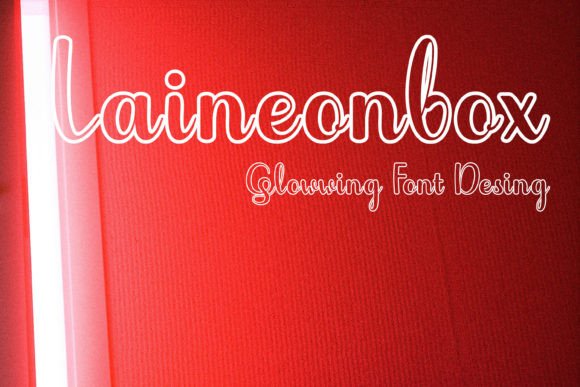
Introduction to Laineonbox Font
Illuminated font design with handwritten characters, presenting “Laineonbox”.
Inspired by neon boxes to display your brand or product Laineonbox’s handwritten design has a smooth and dynamic character, combined with the size of the letters, giving an elegant and luxurious feel to the brand that will be displayed.